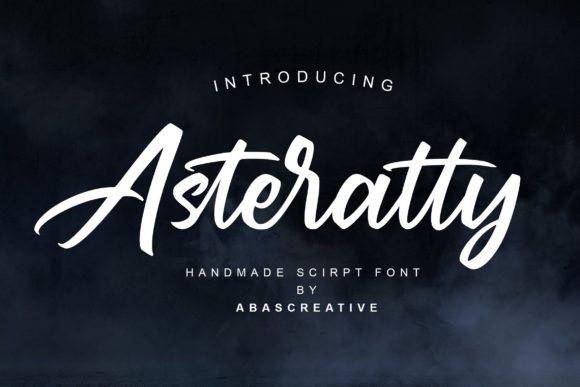
Introduction to Asteratty Font
Asteratty is a stylish and incredibly elegant script font.
It looks stunning on wedding invitations, thank you cards, quotes, greeting cards, logos, business cards and every other design which needs a personalized vibe .